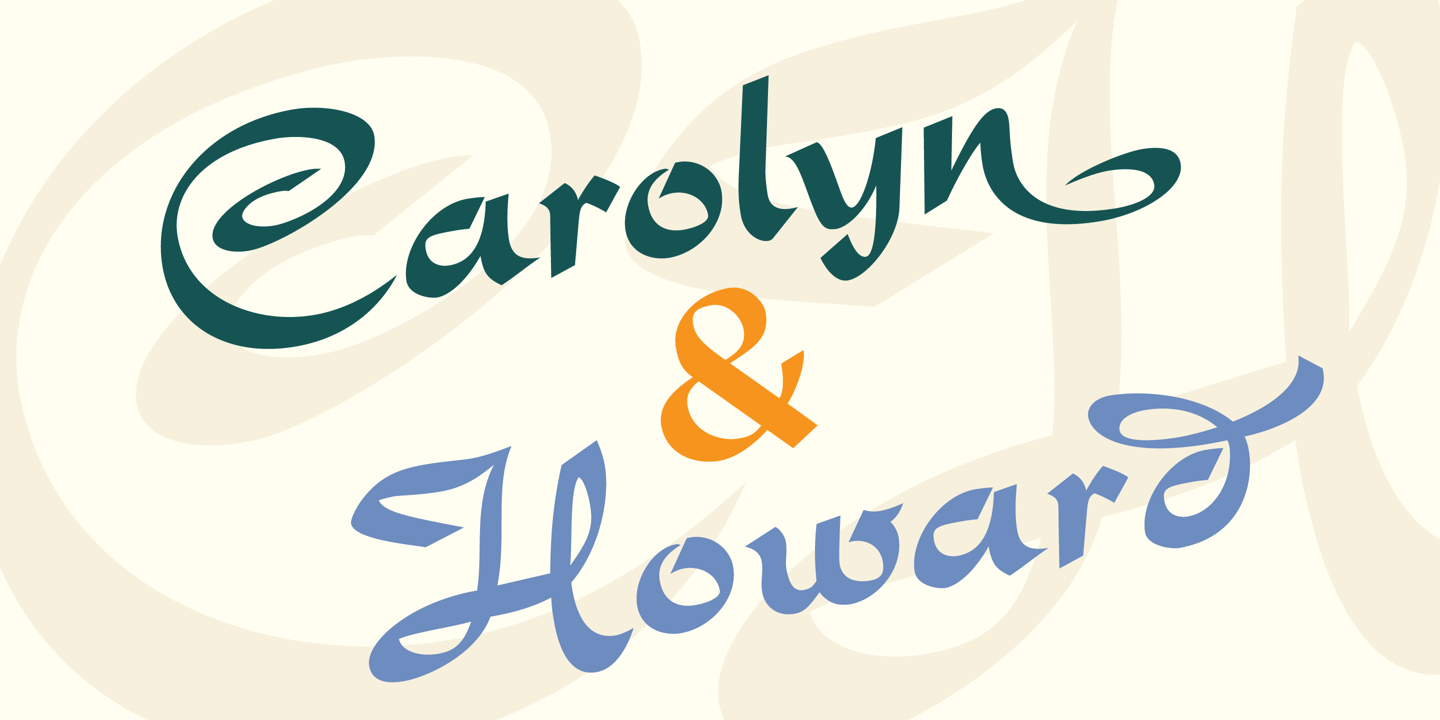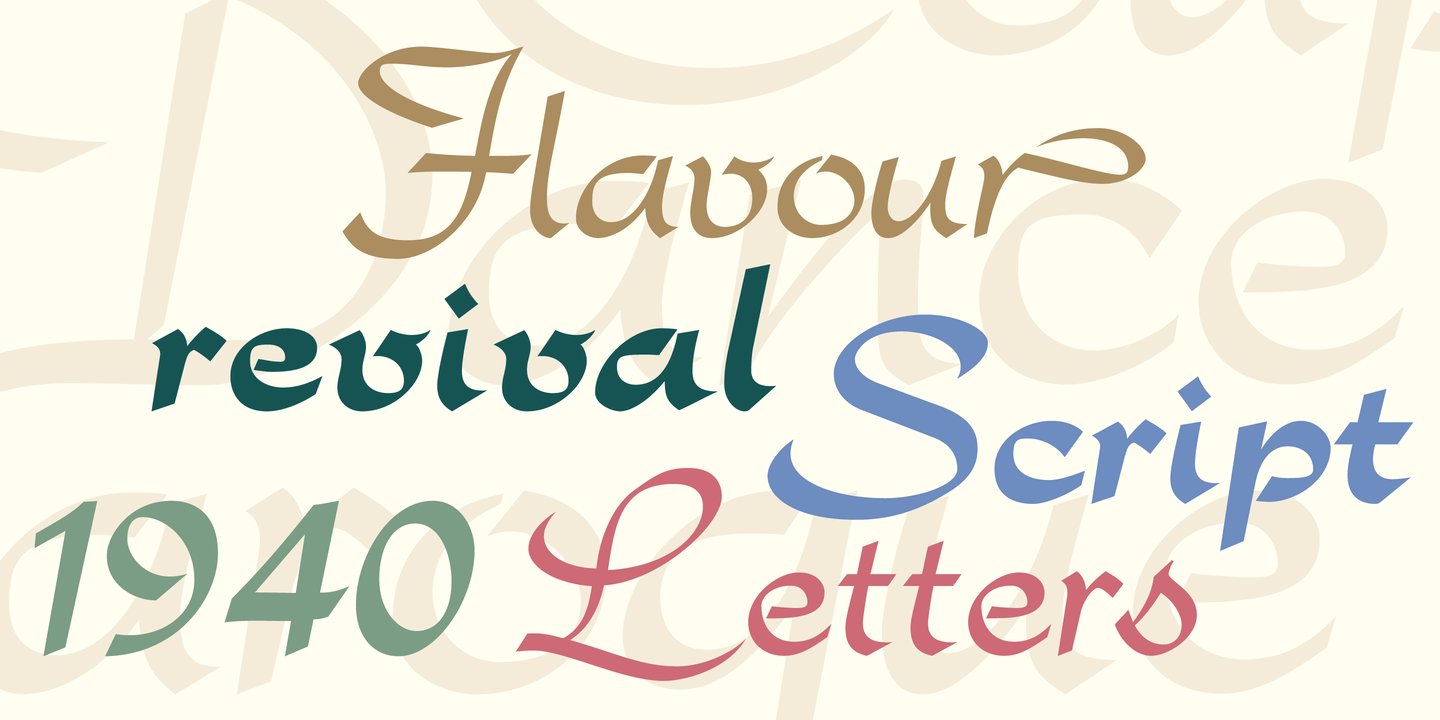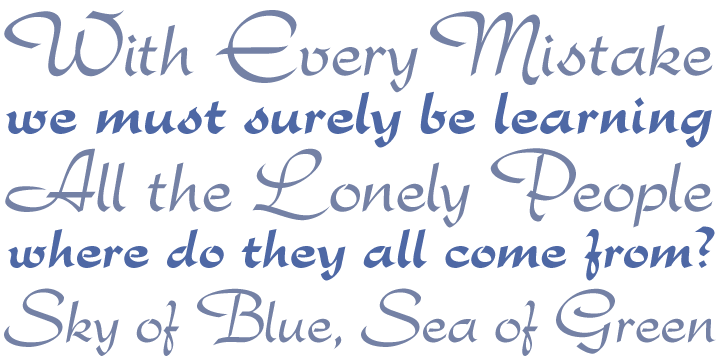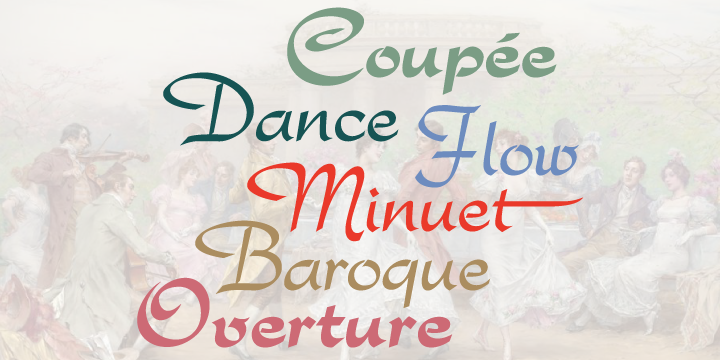
Stefan Schlesinger
In 1925 Stefan Schlesinger moved to the Netherlands, where he worked as a multi-disciplined designer and developed a reputation for stylish and playful design. He designed the packaging for the world famous Van Houten chocolate, many advertisements for the Metz & Co. department store, and many signs and posters for the city of Amsterdam.
While working on his typeface Rondo with the Lettergieterij Amsterdam, Schlesinger was deported to the Westerbork camp in 1942.